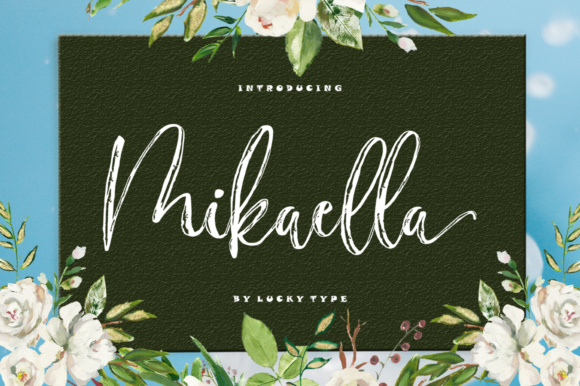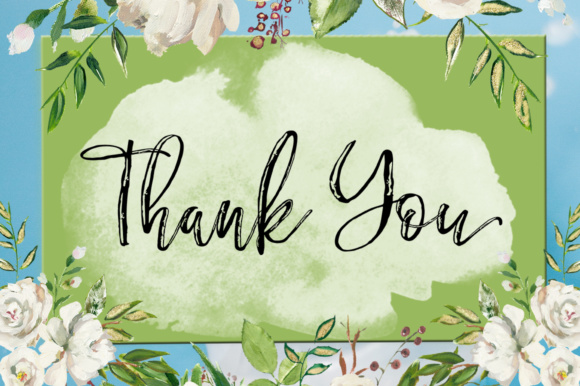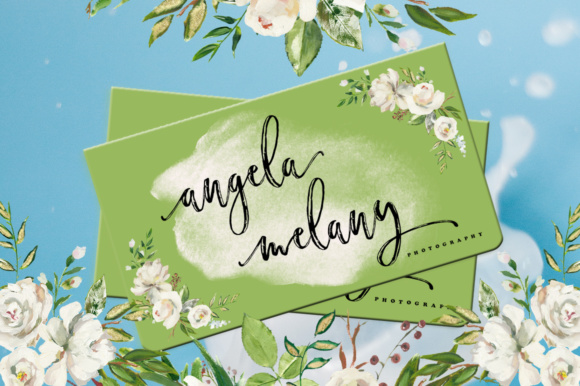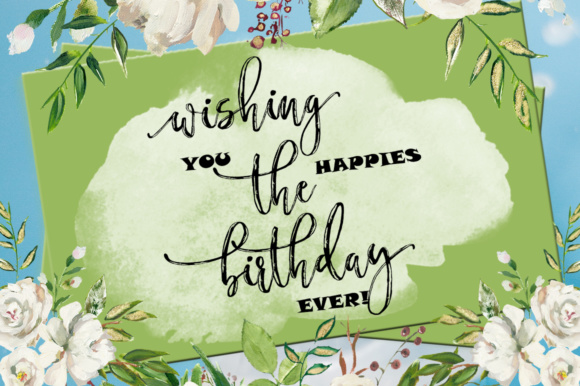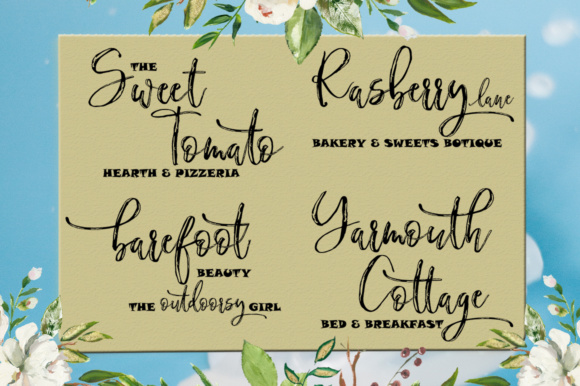
Mikaella Font
About Mikaella Font
The Mikaella Script is a new modern script font. It has an irregular baseline which gives it an elegant feel. Its trendy and feminine style is perfect for invitations, quotes, thank you cards, greeting cards, logos, and much more!